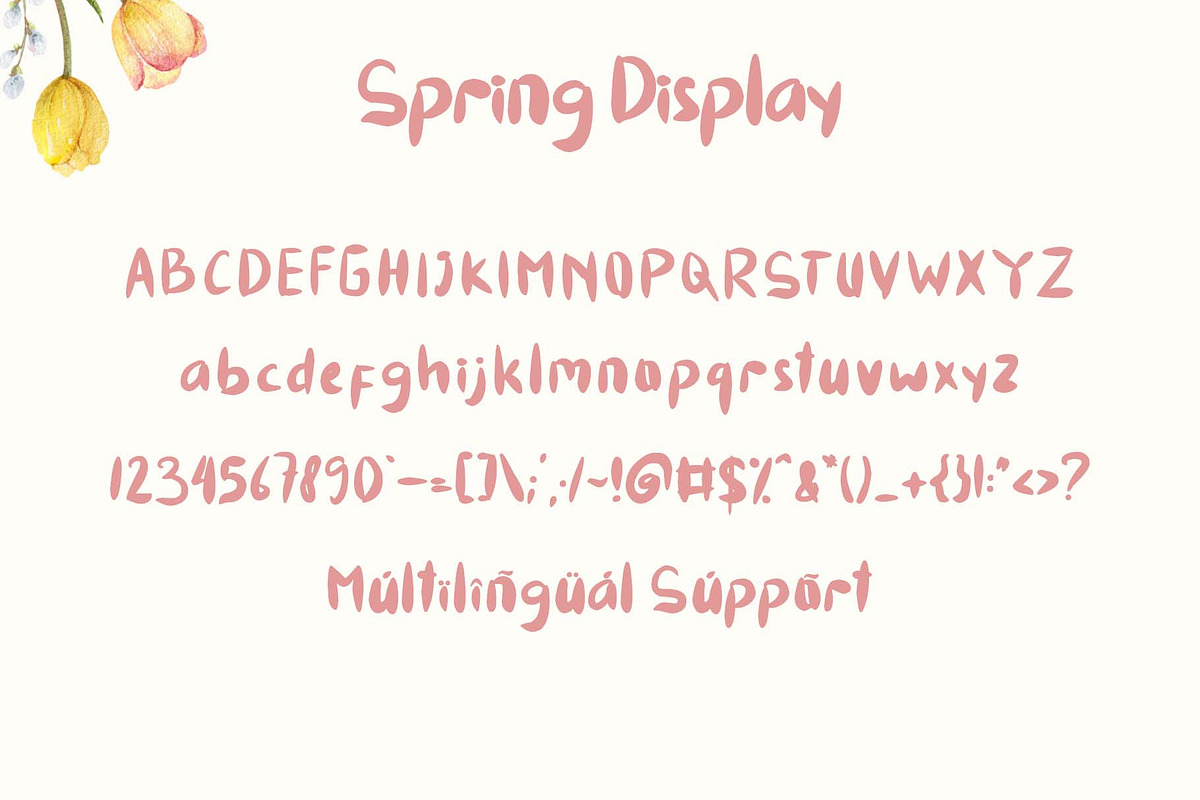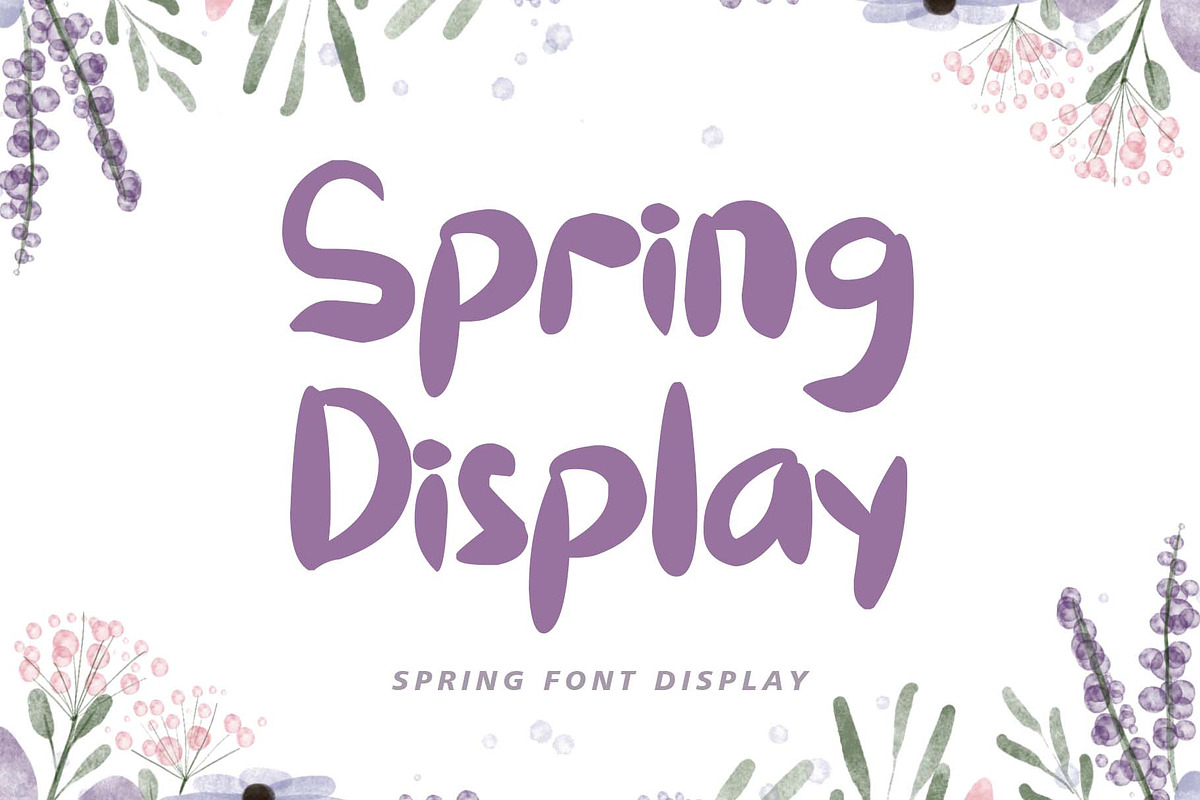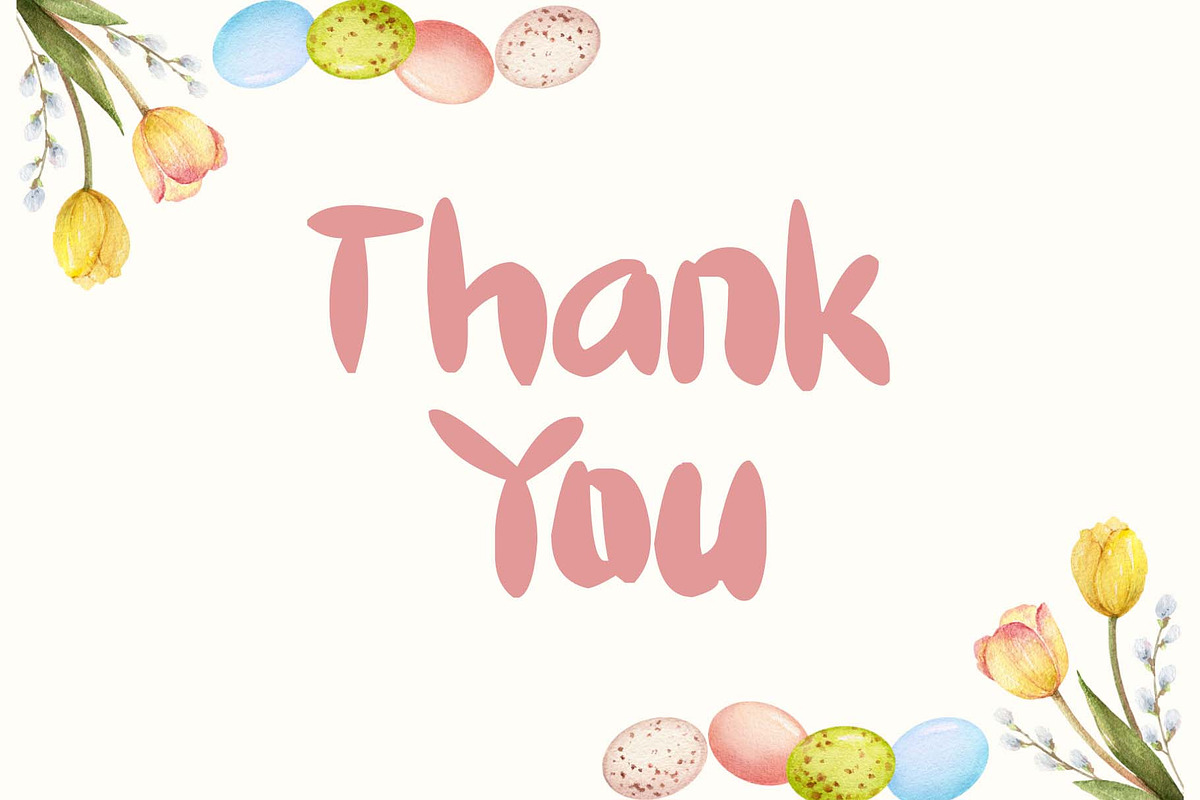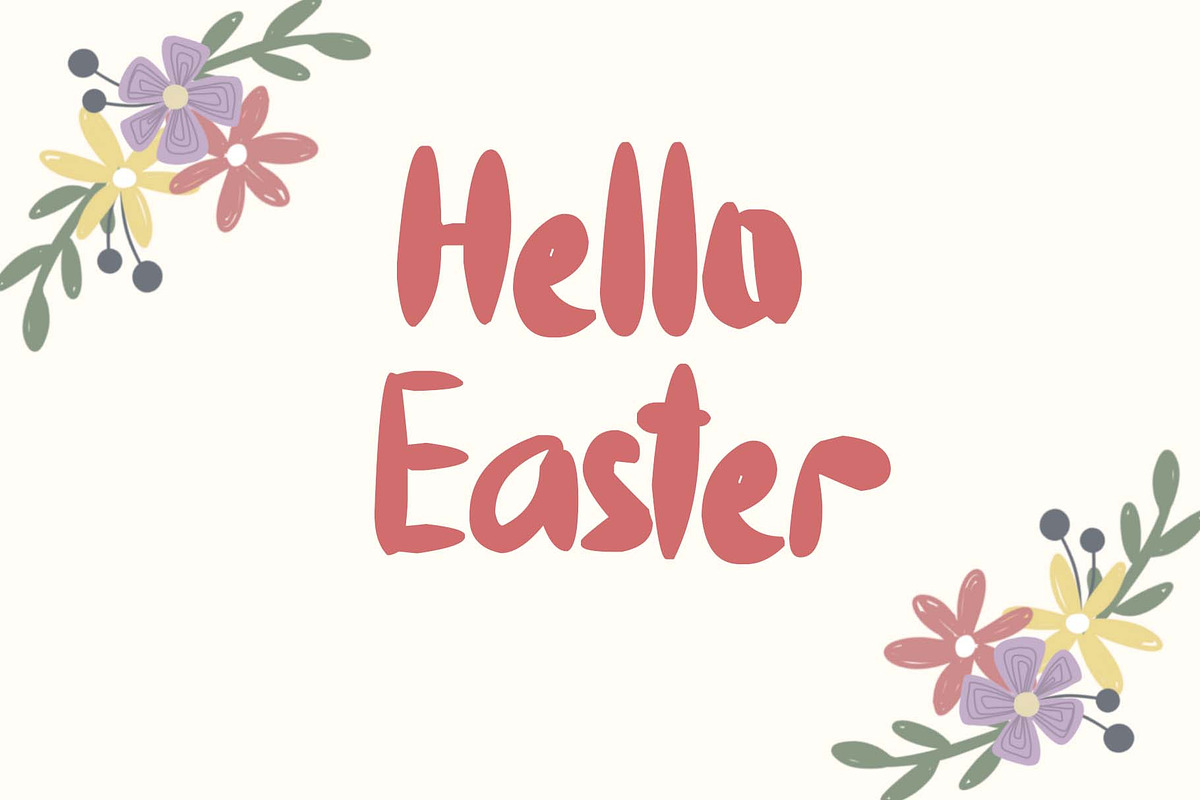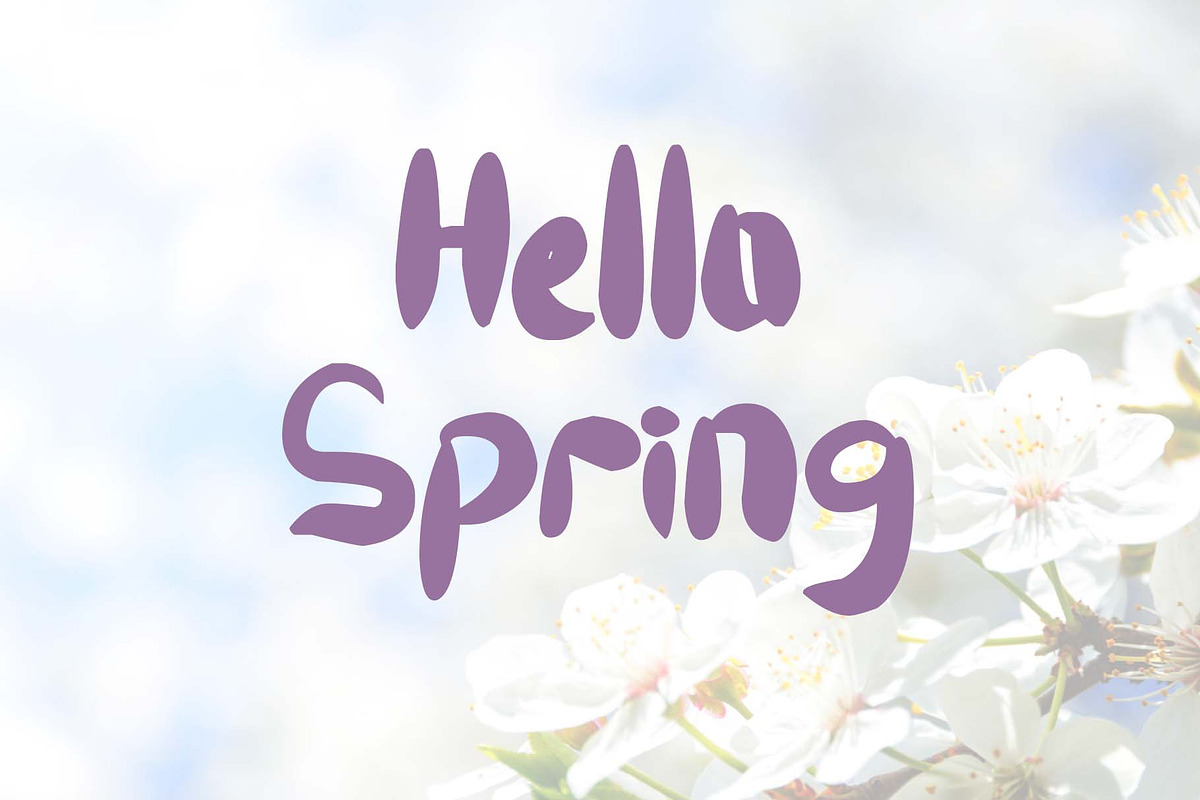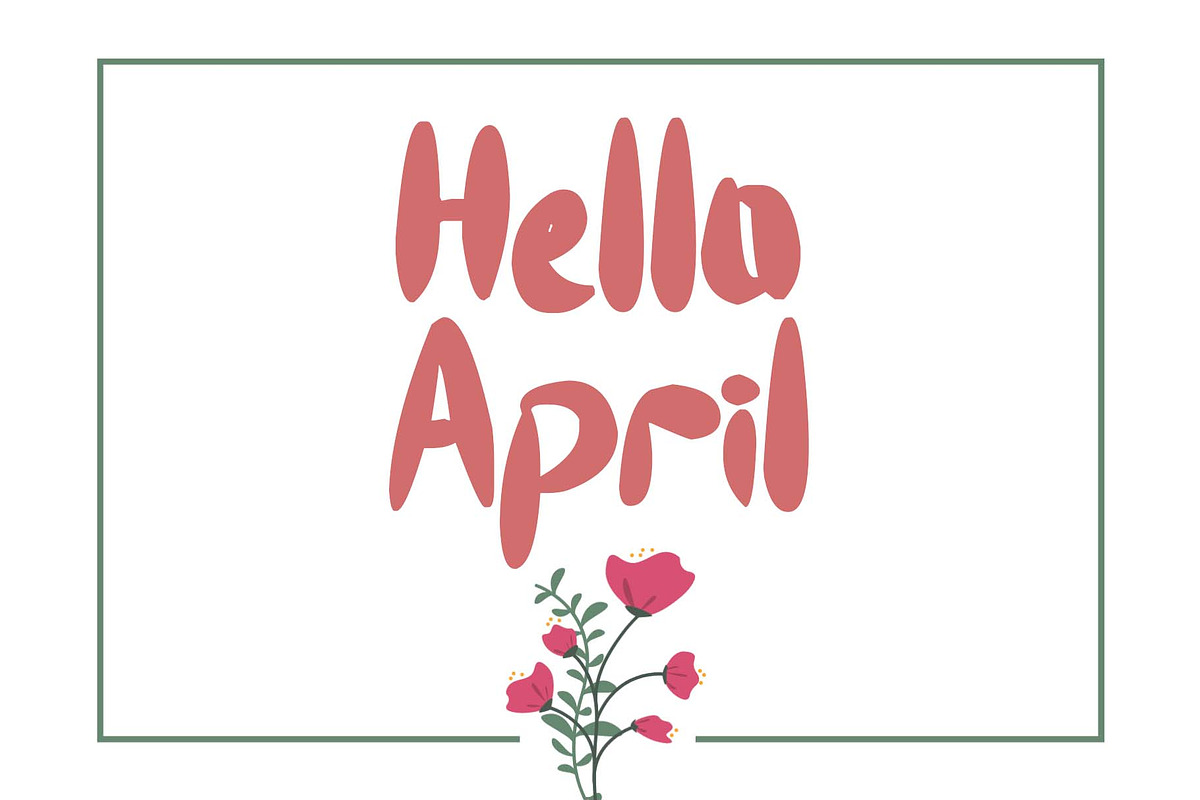
Spring Display
"Spring Display" is a cute and unique display font. This font is equipped with uppercase, lowercase, numerals, punctuations, and multilingual support. This font is perfect for Easter, summer, winter, holidays, spring, back to school, mother's day, and more.